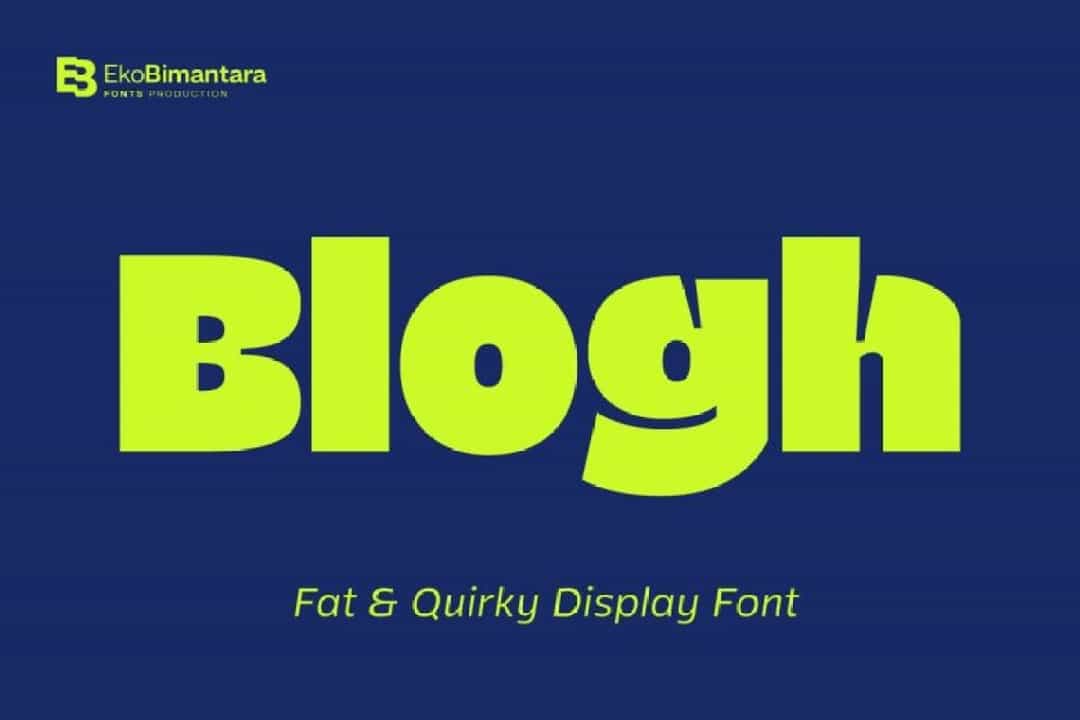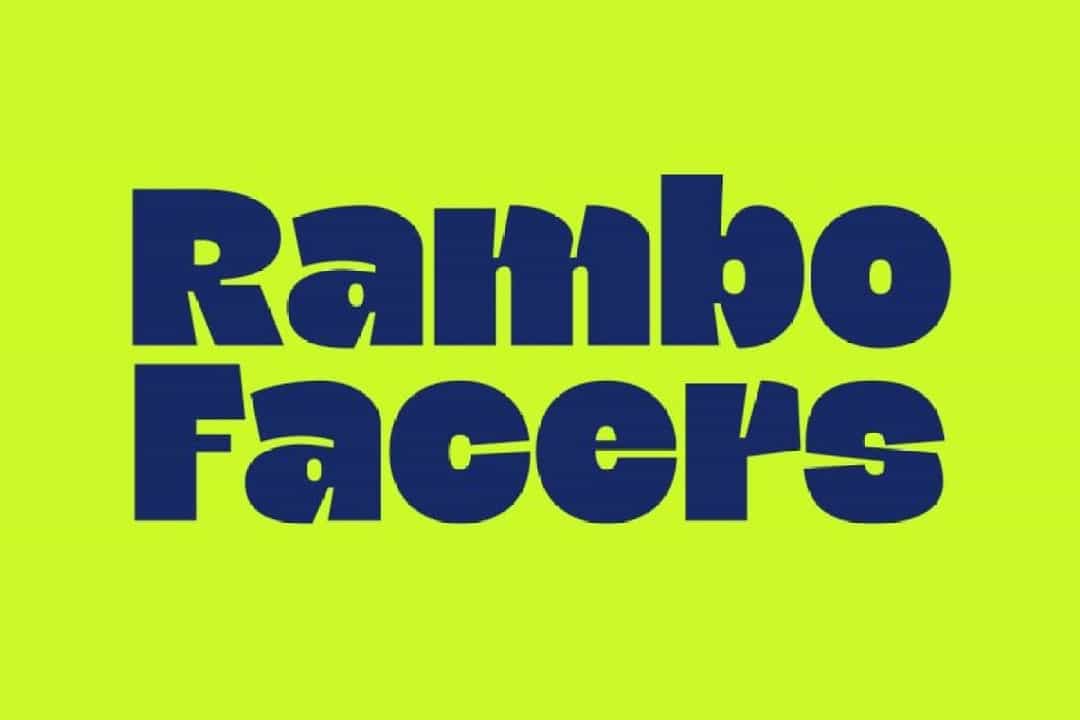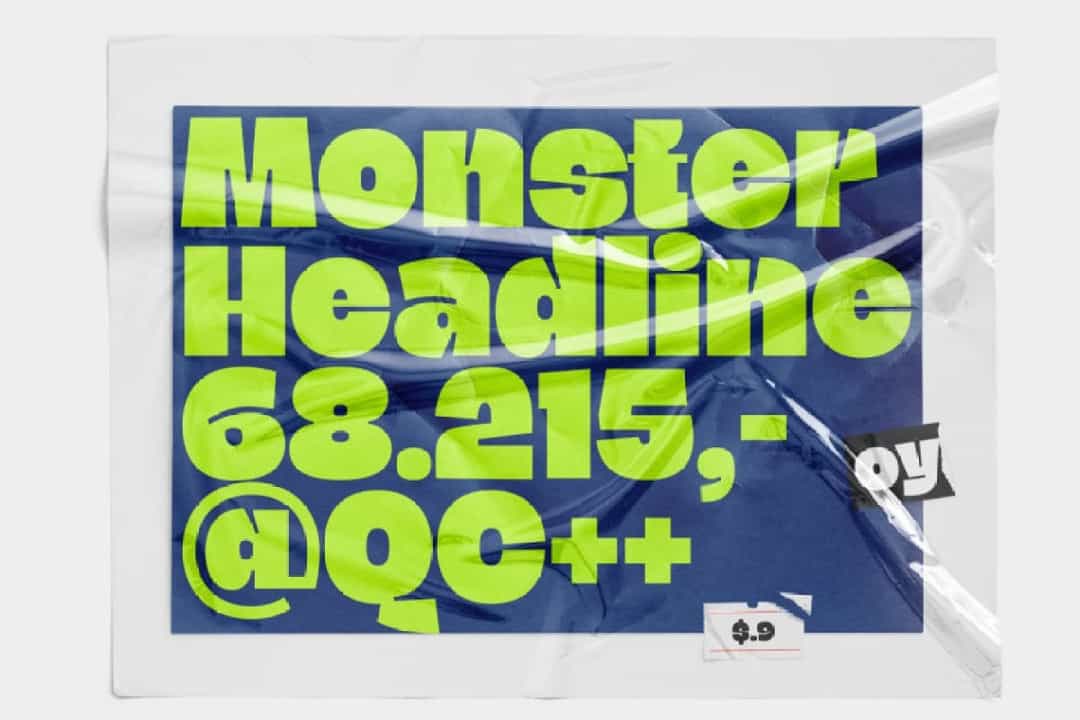
Blogh is a beautiful display font face. Characterized with thick strokes and a highly artificial ink trap, the typeface is suitable for titles, headings, and other large sizes.